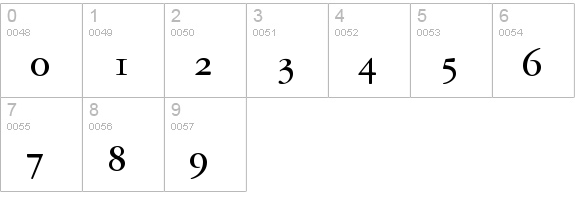
Garamond 3 Bold Small Caps & Old Style Figures is a strong, high-contrast variant in the Garamond typeface family \xE2\x80\x94 well suited to headlines, attention-grabbing titles, and strong calls-to-action.
Garamond 3 Bold Small Caps & Old Style Figures font exudes a classic elegance and sophistication that is perfect for adding a touch of refinement to any design project. The bold weight of this font makes a strong statement, while the small caps and old style figures add a unique flair to your text. Whether you're creating a vintage-inspired poster, a stylish logo, or an elegant wedding invitation, Garamond 3 Bold Small Caps & Old Style Figures font is sure to impress. Best of all, this font is completely free to download at FontsMarket.com. Simply visit the website and start using this stunning typeface in your projects today. Don't miss out on the opportunity to elevate your designs with the timeless beauty of Garamond 3 Bold Small Caps & Old Style Figures font.